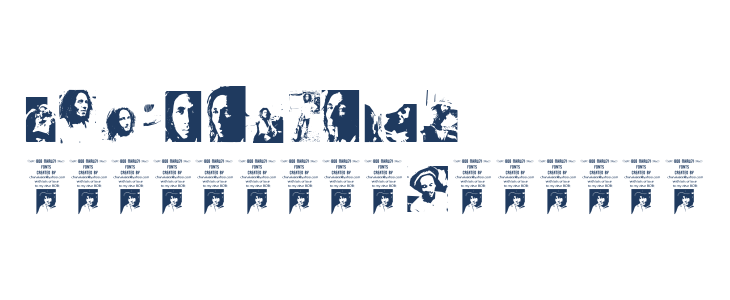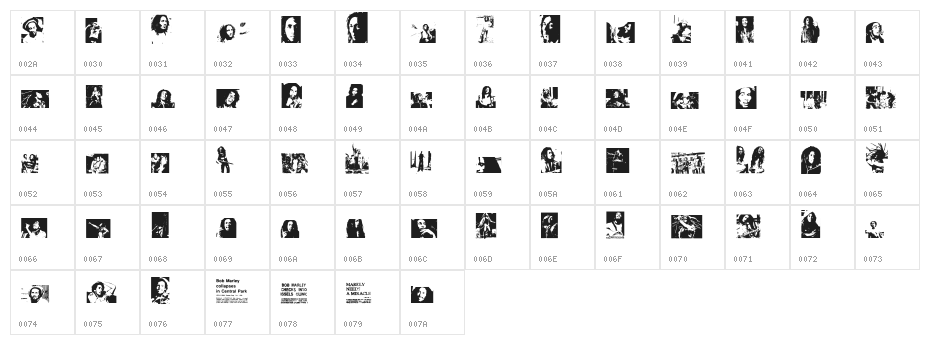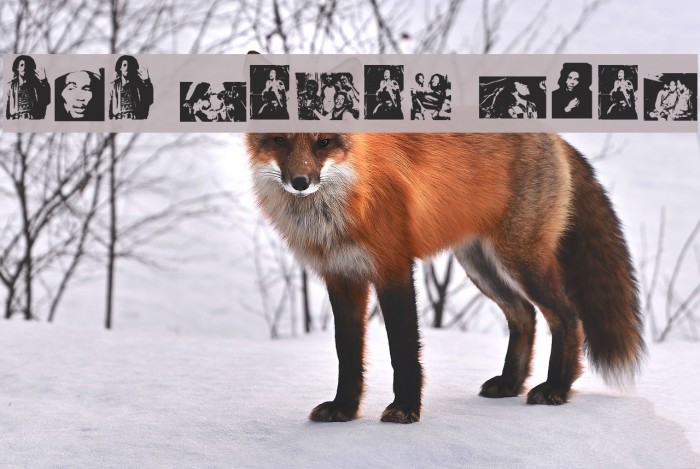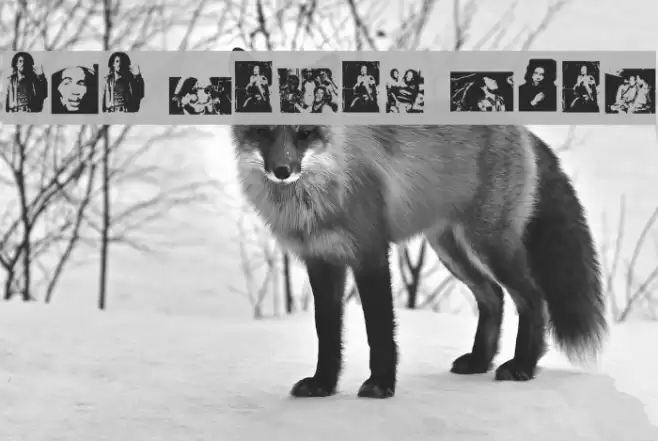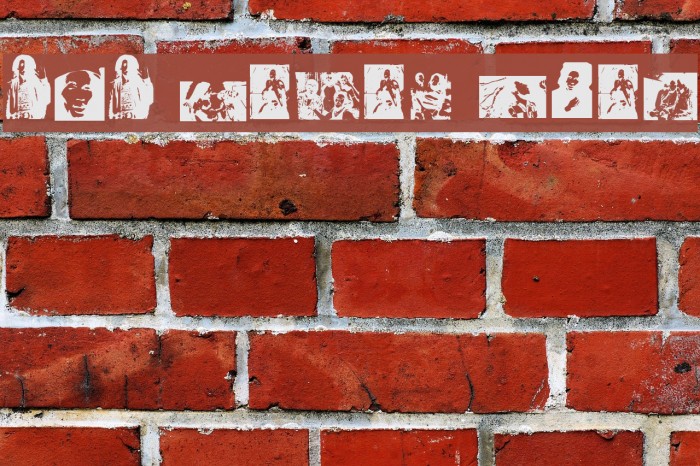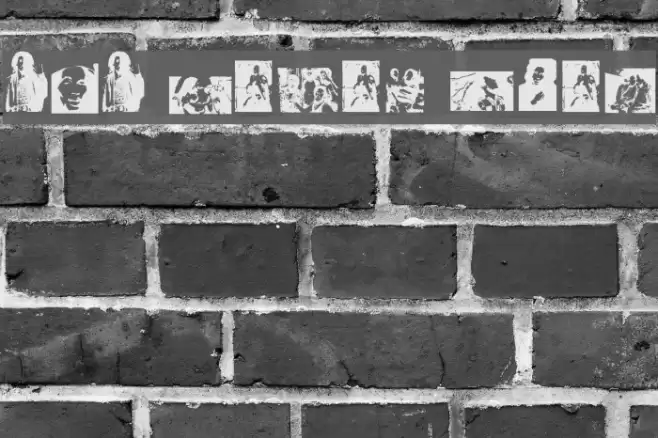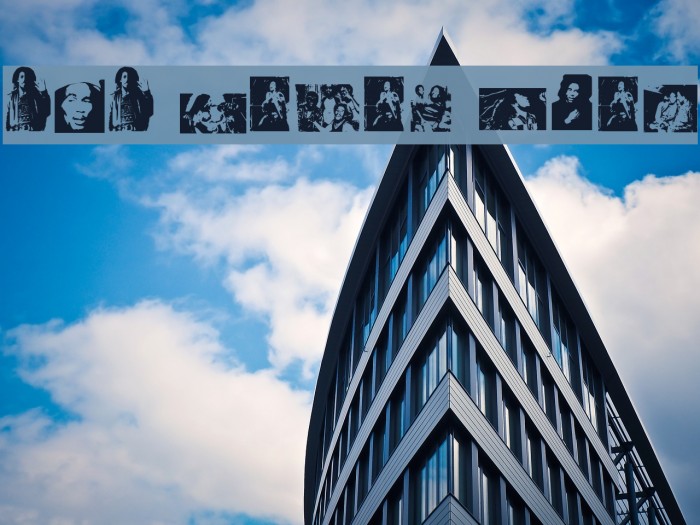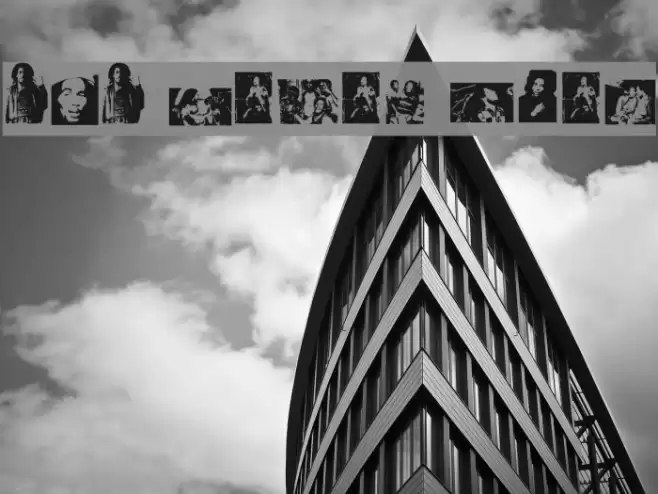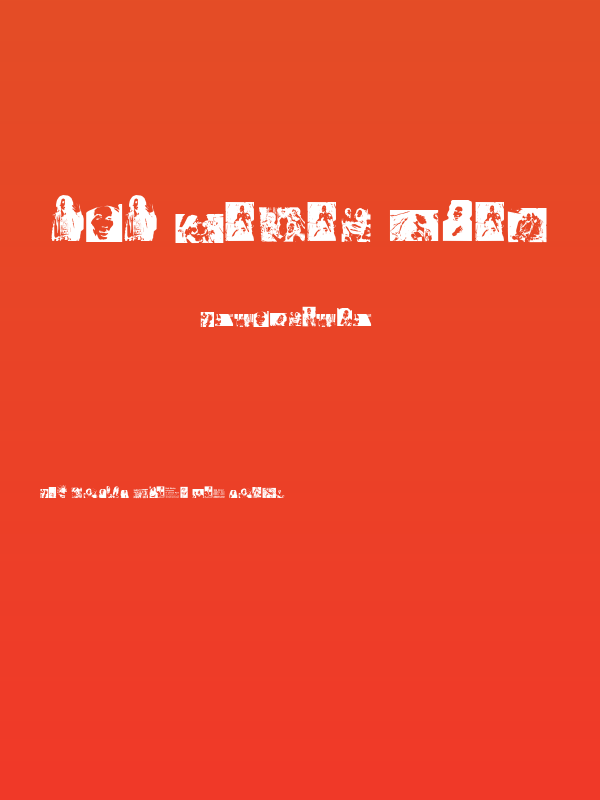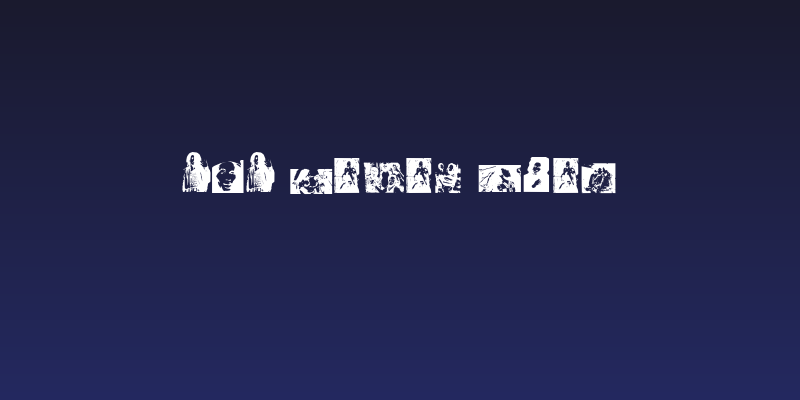
BOB NEVER DIES Font
BOB NEVER DIES Description
This set features highly stylized glyphs where each character is represented by a black-and-white photographic image, primarily of a famous musician, with some glyphs including text from newspaper clippings. The characters are not traditional letterforms but rather individual photo tiles, making legibility secondary to visual impact.
| Overall Style | Decorative, Experimental, Collage |
| Use Case | Headlines, Posters, Artistic projects |
| Proposed Projects | Music posters, album covers, tribute artwork, experimental graphic design, event promotions. |